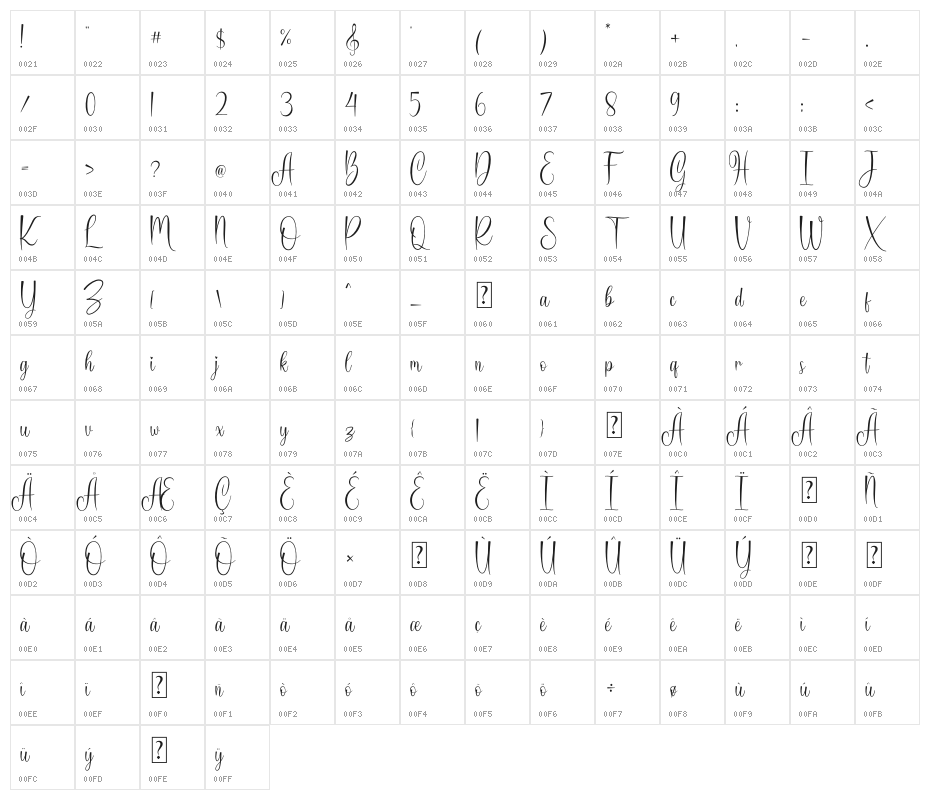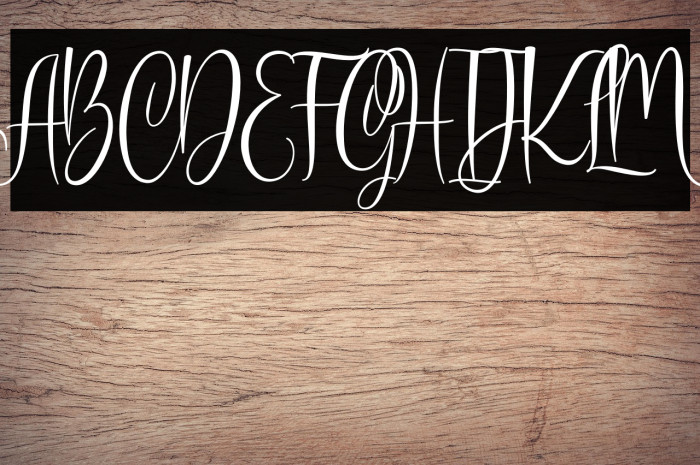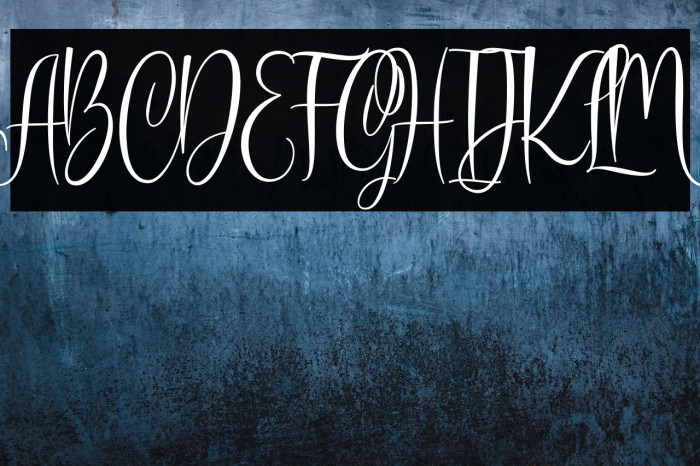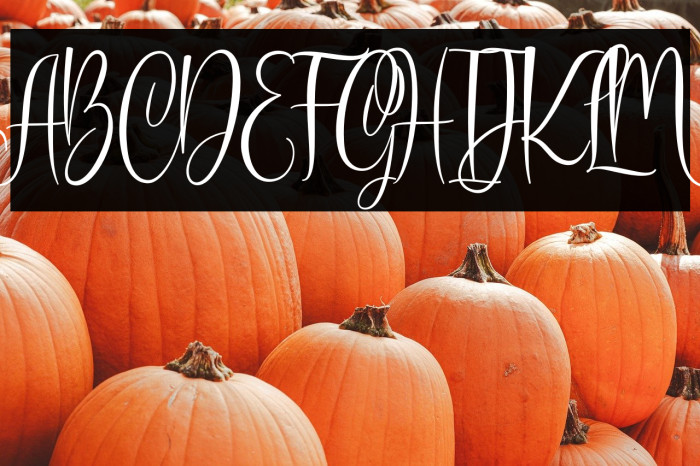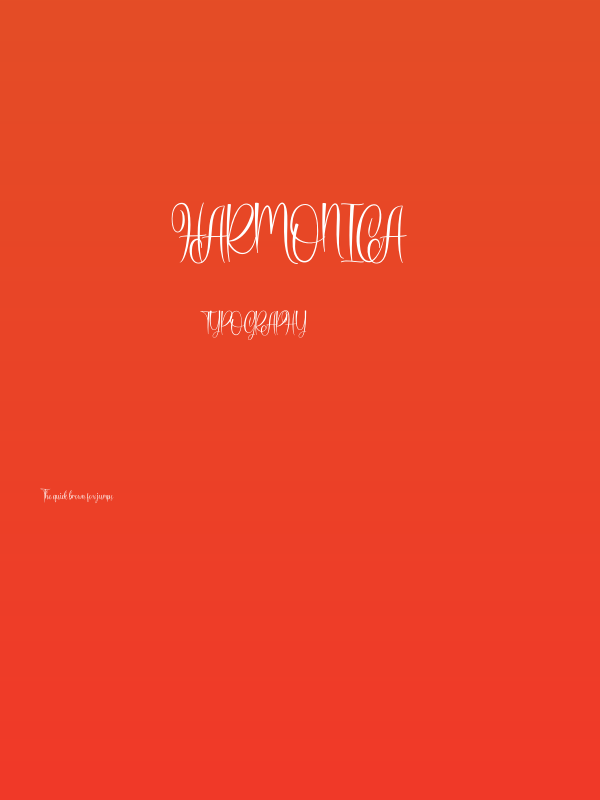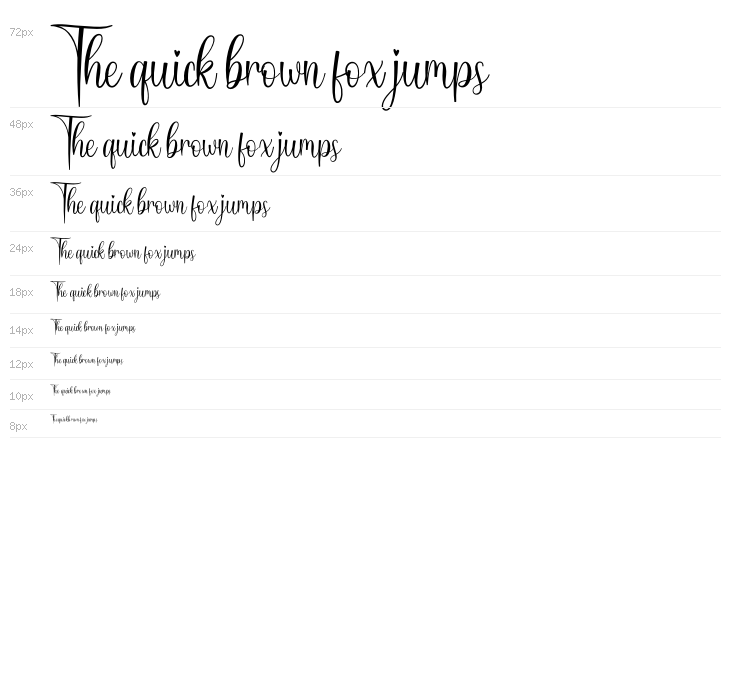
Harmonica Font
Harmonica Description
This font features a whimsical and artistic style, characterized by its flowing, cursive-like uppercase letters and more straightforward lowercase letters. The uppercase letters are tall and narrow, with exaggerated loops and swirls that give them a playful and elegant appearance. The lowercase letters maintain a more consistent baseline, offering a nice contrast to the ornate capitals. The numerals are distinct and easy to read, with a slight slant that complements the overall design. Special characters are included, maintaining the font's unique style with creative flourishes. This font is perfect for projects that require a touch of elegance and creativity.
| Proposed Projects | Ideal for wedding invitations, greeting cards, artistic posters, and branding materials that require a touch of elegance and creativity. |